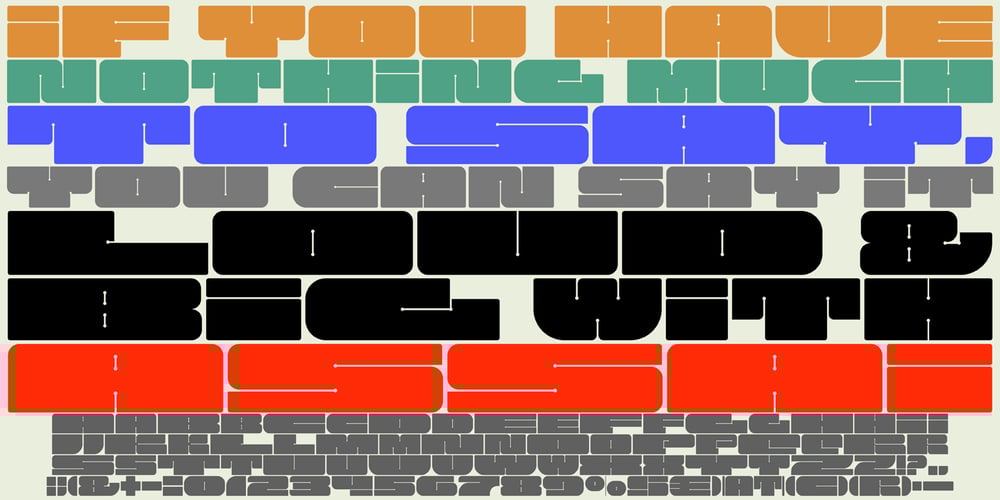
Assai Font Family was designed by Jürgen Weltin and published by Type Matters. Assai contains 1 styles and family package options. A very heavy headline only typeface which should be typeset at rather large type sizes due to its fine counters. It’s the ideal typeface for building a brick-wall out of letters. Surprise is in the details, so play it loud and big! It’s fun.